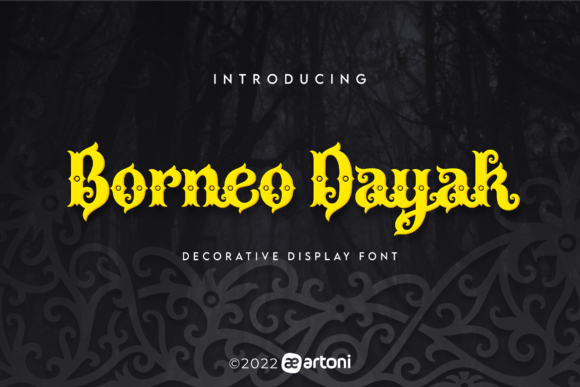
Indulge in the captivating charm of Borneo Dayak Font, a creation inspired by the rich artistry of the Dayak tribe. This display font is a visual feast that transcends the boundaries of the ordinary, inviting you to embrace the extraordinary. Each letter is a stroke of genius, imbued with the spirit of a bygone era.
Step into a world of vintage glamour with Borneo Dayak Font. Its intricate details and sweeping curves evoke a sense of nostalgia, transporting you to a realm where time stands still. Whether you're crafting captivating headlines, designing enchanting logos, or creating breathtaking invitations, this font will elevate your creations to unparalleled heights.
Borneo Dayak Font possesses an inherent versatility that adapts to a myriad of design endeavors. Its timeless appeal makes it a perfect choice for posters that demand attention, packaging that exudes sophistication, and branding that resonates with the depths of your soul. The possibilities are as boundless as your imagination.
Embrace the allure of Borneo Dayak Font today and unlock a world of creative enchantment. Let its vintage elegance inspire your designs, ignite your passions, and leave an enduring legacy in the hearts of your audience.